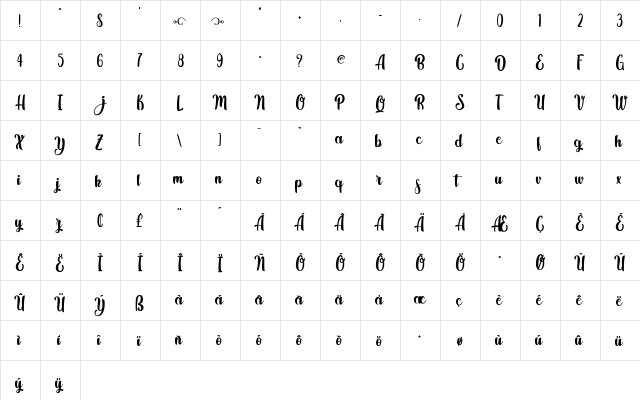
Kindly Jasmine Regular
| Foundry | Typhoon Type - Suthi Srisopha |
| Designer | Typhoon Type - Suthi Srisopha |
Design Context for Kindly Jasmine Typeface
Kindly Jasmine is a composed and adaptable typeface that performs quietly and consistently across a wide range of design contexts.